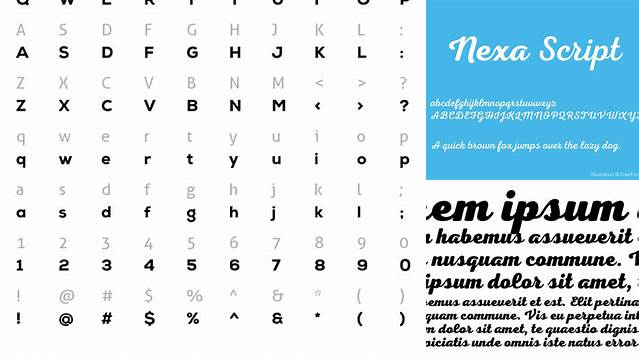
Nexa Script Heavy Font: Free Download & Usage Guide
Hey guys! Are you on the hunt for the perfect font to give your projects that extra special touch? Look no further! Today, we're diving deep into the world of Nexa Script Heavy, a font that's been making waves in the design community. This guide will walk you through everything you need to know about this fantastic typeface, from its unique characteristics and ideal uses to where you can snag it for free. So, buckle up and let's get started!
What Makes Nexa Script Heavy So Special?
When it comes to choosing a font, Nexa Script Heavy stands out for several reasons. First and foremost, its bold and flowing design immediately grabs your attention. This isn't your run-of-the-mill script font; it's got a certain confidence and flair that makes it perfect for headlines, logos, and any design element where you want to make a strong statement. Think of it as the rockstar of script fonts – it's got the attitude and the presence to command attention.
But it's not just about the boldness. Nexa Script Heavy also boasts a smooth, flowing aesthetic that adds a touch of elegance to your work. The connecting strokes between letters create a sense of fluidity and rhythm, making it a joy to read and look at. This balance between boldness and elegance is what sets it apart and makes it so versatile. You can use it for everything from edgy branding materials to sophisticated invitations, and it'll always deliver a stylish and impactful result.
Another key aspect of Nexa Script Heavy is its legibility. While some script fonts can be difficult to read, especially in smaller sizes, Nexa Script Heavy maintains clarity and readability. This is crucial for ensuring that your message gets across, whether you're designing a website, a poster, or a social media graphic. The well-defined letterforms and generous spacing make it easy on the eyes, even in longer blocks of text. So, you don't have to sacrifice readability for style – with Nexa Script Heavy, you get both!
Finally, let's talk about the emotional impact of Nexa Script Heavy. Fonts have the power to evoke feelings and set the tone for your design, and Nexa Script Heavy is no exception. Its boldness conveys confidence and authority, while its script-like nature adds a personal and friendly touch. This combination makes it ideal for brands and projects that want to project both strength and approachability. Whether you're designing a logo for a tech startup or a poster for a community event, Nexa Script Heavy can help you create the right impression.
Ideal Uses for Nexa Script Heavy
Now that we've established what makes Nexa Script Heavy so awesome, let's explore some specific applications where it truly shines. Its unique blend of boldness and elegance makes it a versatile choice for a wide range of design projects. From branding to web design, Nexa Script Heavy can add a touch of sophistication and personality.
One of the most popular uses for Nexa Script Heavy is in logo design. Its eye-catching appearance helps brands make a memorable first impression. Whether you're designing a logo for a fashion boutique, a coffee shop, or a creative agency, Nexa Script Heavy can convey a sense of style and professionalism. The boldness ensures that the logo stands out, while the script-like quality adds a personal and unique touch. It's a winning combination for creating a logo that's both distinctive and timeless.
Headlines are another area where Nexa Script Heavy truly excels. Its strong presence makes it perfect for grabbing attention and conveying a message with impact. Whether you're designing a poster, a website banner, or a social media graphic, Nexa Script Heavy can help your headlines pop. The boldness ensures that the headline is easily readable, even from a distance, while the script-like style adds a touch of flair. It's a fantastic choice for creating headlines that are both eye-catching and informative.
In the world of branding and marketing materials, Nexa Script Heavy can be a game-changer. Its distinctive appearance helps brands stand out from the competition and create a consistent visual identity. Use it on business cards, brochures, flyers, and other marketing collateral to convey a sense of style and professionalism. The versatility of Nexa Script Heavy means that it can be adapted to suit a wide range of brand aesthetics, from modern and minimalist to vintage and retro.
Nexa Script Heavy is also a great choice for invitations and announcements. Its elegant and flowing style adds a touch of sophistication to any event. Whether you're designing invitations for a wedding, a party, or a corporate event, Nexa Script Heavy can help you create a memorable impression. The script-like quality adds a personal and intimate feel, while the boldness ensures that the invitation stands out. It's a perfect blend of style and functionality.